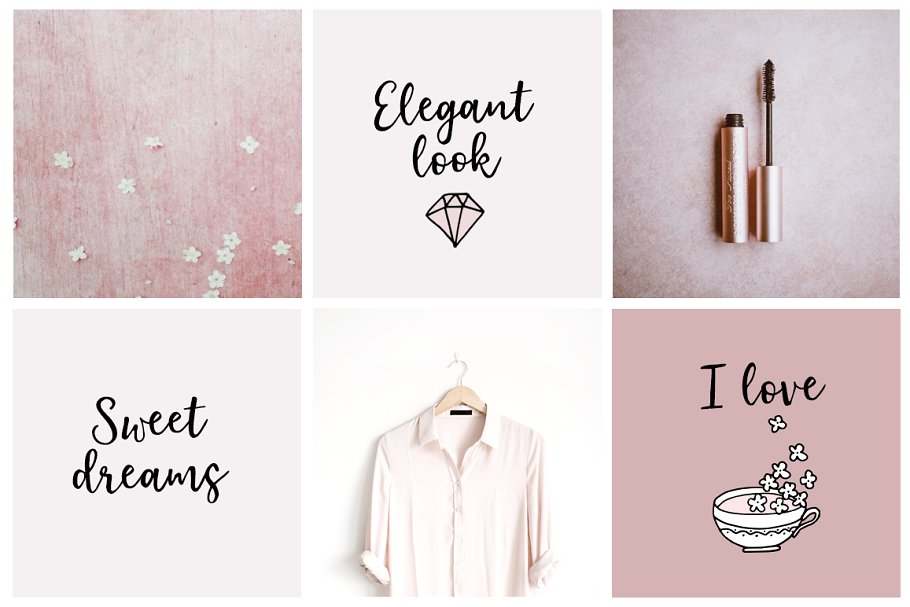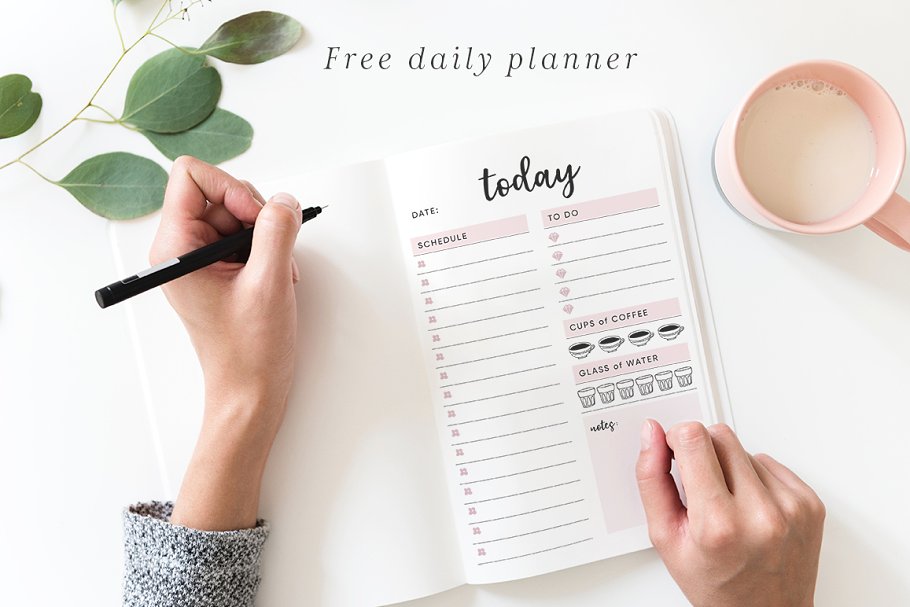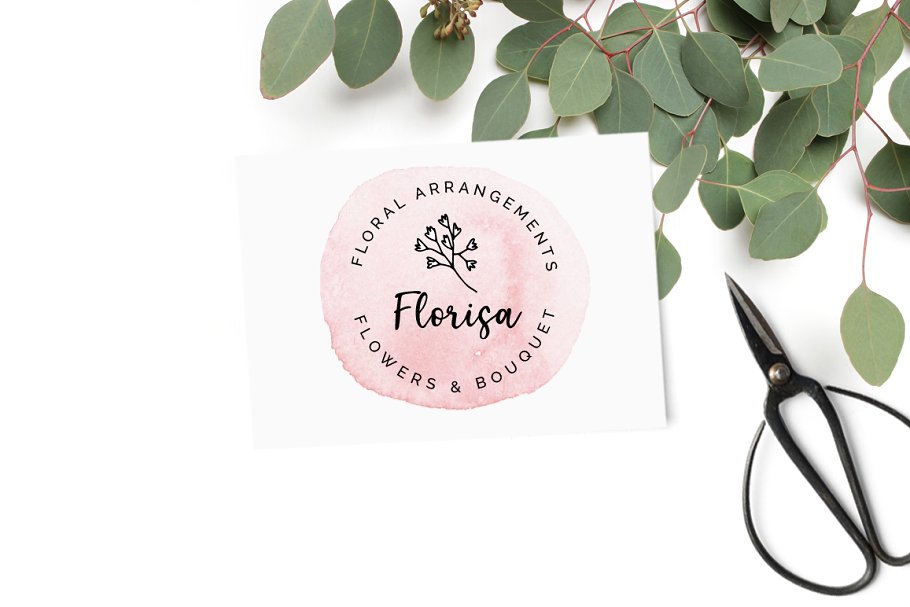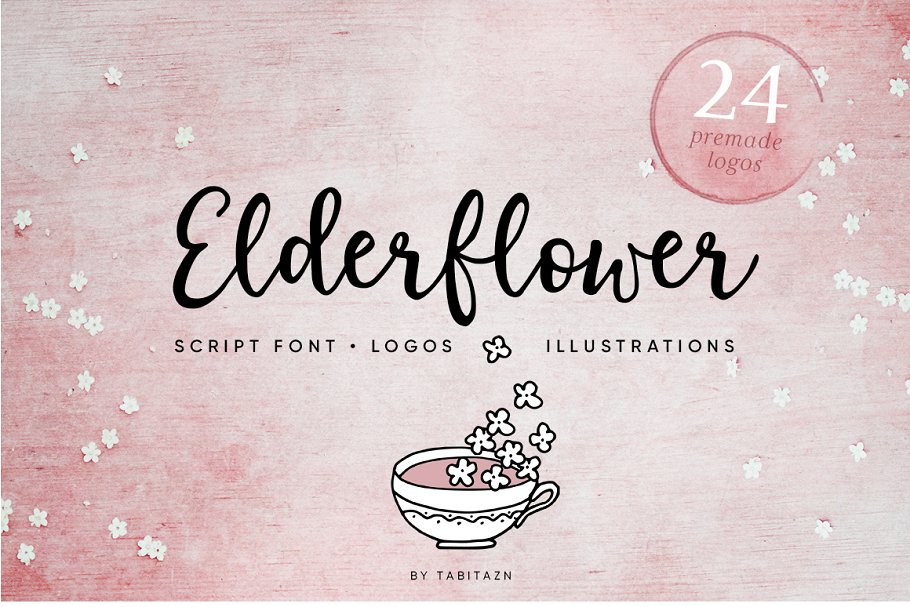
Elderflower Font
Let me introduce the Elderflower collection – a cute script font with a bunch pre-designed logos and doodle vector illustrations.
The set contain